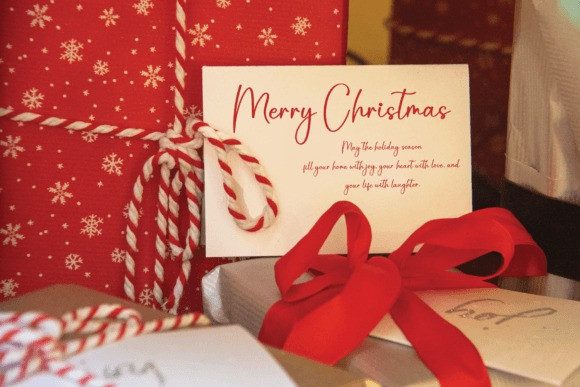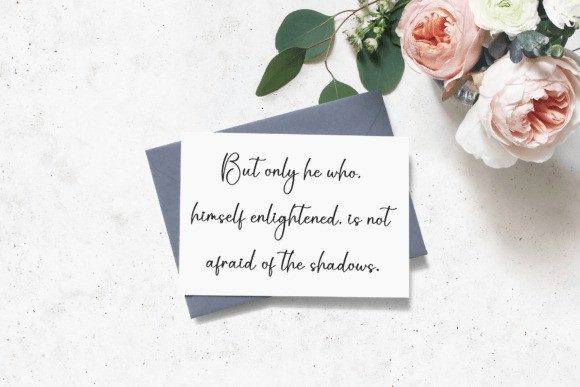
Photography Font
Photography Font is a modern and exquisite handwritten font. Stylish, graceful, and flowing, this font will definitely elevate the look of any of your beautiful creations while keeping them grounded and natural.